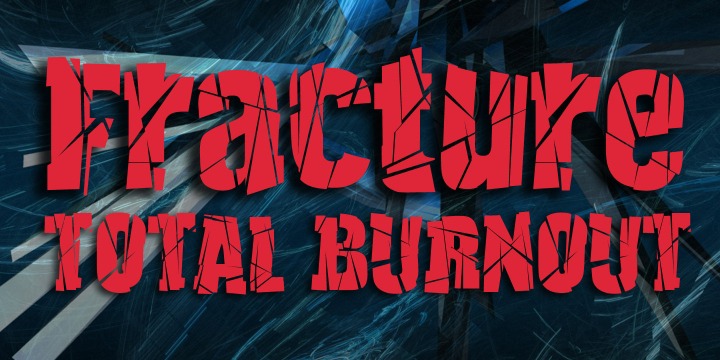
Fracture™
Designed by: Anton Scholtz
Fracture
Fracture is a broken font -- broken into many pieces -- yet it still conveys a powerful and modern message. It is a funky, in-your-face font that has strong overtones of modern rap and hip-hop culture. Its fragmented look brings to mind graffiti, contemporary youth culture, kids-on-the-move. Fracture is a must for movie posters, event posters, CD & DVD covers, clothing ads & swing tags, funky magazines, in fact, any product aimed at the young, trendy market.
The font is letterspaced and kerned and has a complete character set (all upper and lower case, numerals and mathematical symbols and a complete set of accented and special characters).